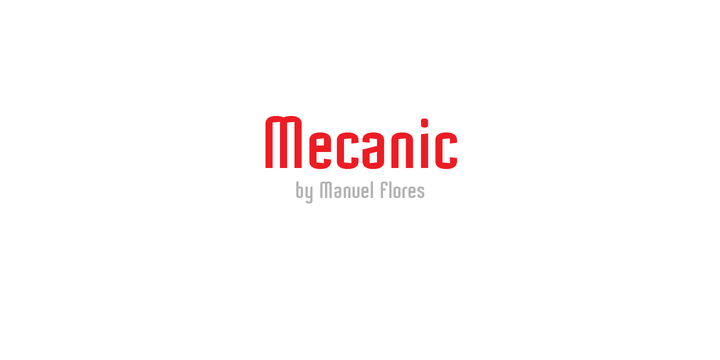
Mecanic
by Manolo Type
Their angular lines are strongly contrasted by sweeping curves, the result: one type with firm character and strong personality.